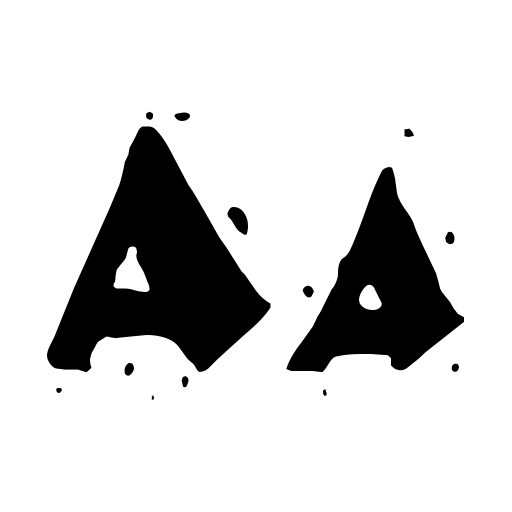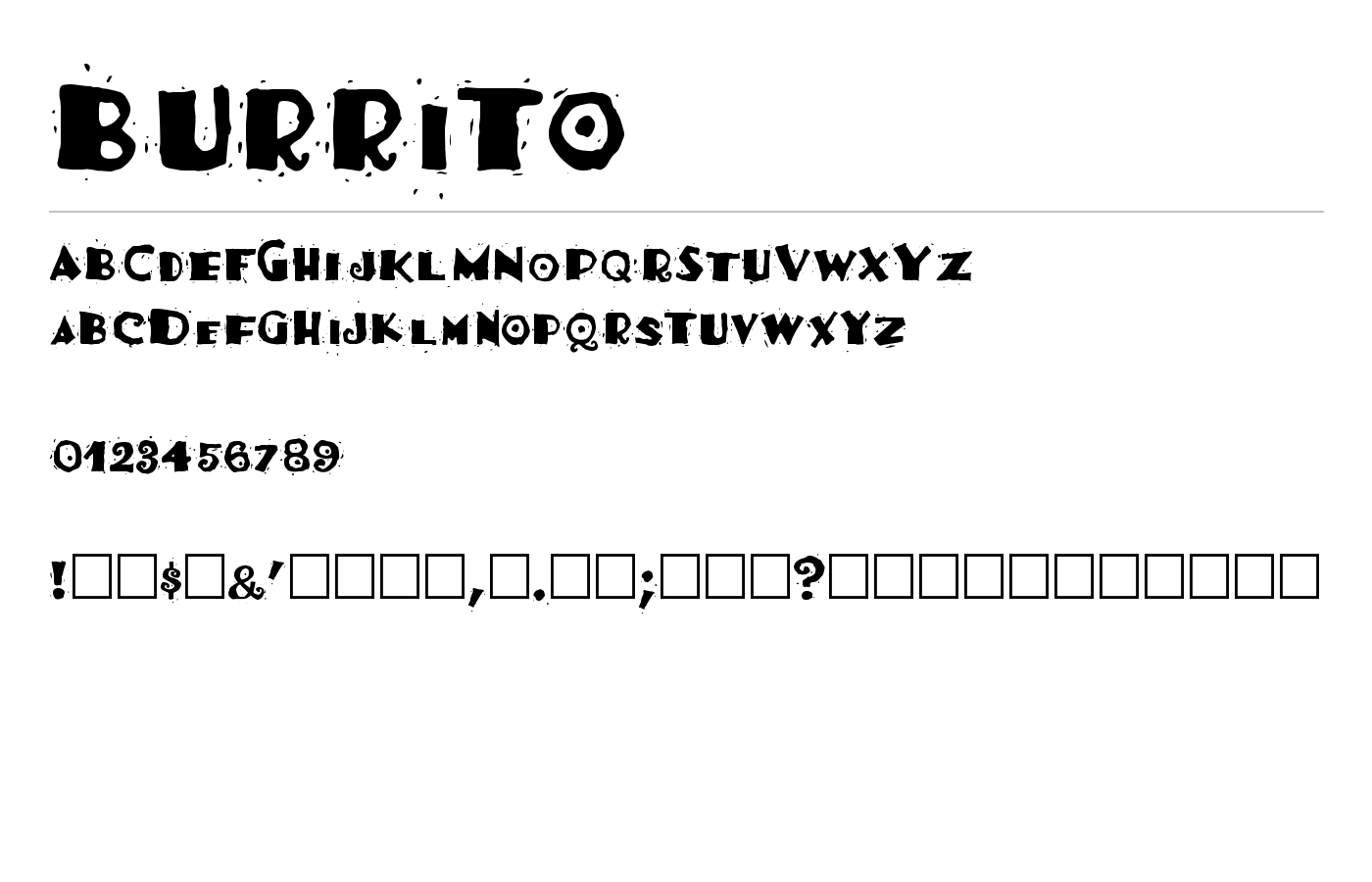
Burrito Font is a bold, playful display typeface with a hand-drawn, textured look that adds a casual, artistic vibe. Its irregular shapes and heavy weight make it perfect for fun, informal designs like posters, logos, and packaging where personality and eye-catching style are key. This font’s lively character suits creative projects wanting a unique, approachable feel.
Burrito Font